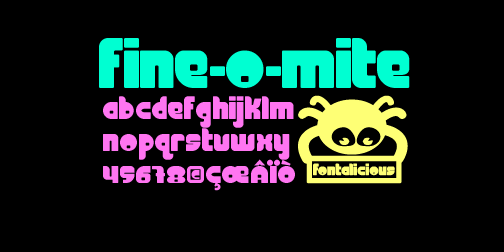
Fine-O-Mite
Another font off the stacks of the girlie era. Here's a typeface you will see on numerous banners to your favorite Sailor Moon websites.
The Fine-O-Mite font family includes 240 glyphs.